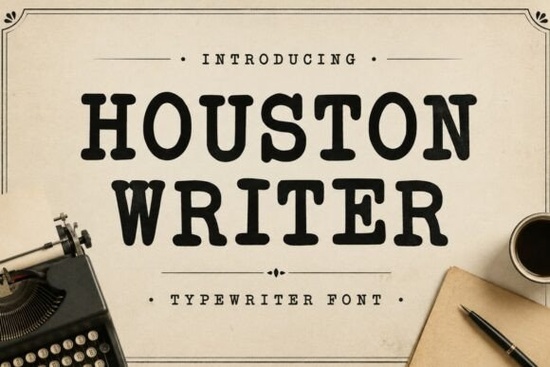
If you're looking for a font that feels like turning the pages of an old novel or typing on a well-loved manual typewriter, Houston Writer Font fits naturally into your workflow without needing to overthink it. It’s not just “vintage-looking”; it’s carefully drawn to echo the subtle imperfections, weight, and rhythm of real typewritten text yet stays crisp and legible at small sizes and on screen. Whether you’re laying out a poetry chapbook, designing café menus, or creating printable journal inserts for Etsy, this serif font bridges nostalgia and practicality in a way many retro fonts don’t.
What kind of projects does Houston Writer work best for?
It shines where authenticity matters more than polish. Think: handwritten-style book covers for indie authors, letterpress-inspired packaging for small-batch candles or teas, or even subtle watermark text on vintage-style scrapbook papers. Because its letterforms are bold but not overly condensed, it holds up well in both large display settings (like posters or social media banners) and smaller functional uses (like recipe cards or product tags).
You’ll also find it useful for editorial layouts especially if you’re designing a literary zine, a local history newsletter, or a themed workshop handout. Its sturdy serifs and even spacing make it easy to read in blocks of body text, unlike some decorative typewriter fonts that sacrifice clarity for character.
How does it compare to other typewriter-style fonts?
Unlike monospaced digital recreations or overly distressed fonts meant only for headlines, Houston Writer Font balances texture with usability. It includes standard OpenType features like ligatures and alternate characters so you can add gentle variation without switching fonts. And because it’s designed as a true serif (not a monospace), it pairs thoughtfully with cleaner sans-serifs like Lato or Montserrat for contrast in branding or layout work.
Other popular options like Olivetti Typewriter Font or Underwood Typewriter Font tend to lean heavier into mechanical precision or heavy wear effects. Houston Writer opts for warmth instead: slightly rounded terminals, soft contrast between thick and thin strokes, and a grounded baseline that feels stable not shaky or overly simulated.
Where do designers actually use it?
- Print-on-demand sellers: Great for quote-based mugs, tote bags, and wall art especially when paired with muted, earthy color palettes common in cottagecore or slow-living themes.
- Small businesses: Works well for café chalkboard menus, bakery labels, or handmade soap packaging where “handmade” credibility matters.
- Crafters and educators: Ideal for printable planners, homeschool worksheets with a vintage textbook feel, or historical reenactment handouts.
- Authors and self-publishers: A strong choice for title pages, chapter headings, or interior drop caps particularly in memoirs, historical fiction, or nature writing.
If you’ve tried other typewriter fonts that felt too stiff or too gimmicky, you might appreciate how Houston Writer sits comfortably in the serif fonts category, offering structure without stiffness. It doesn’t try to be everything just a reliable, expressive voice for stories worth telling slowly.
Try setting a short quote or book title in Houston Writer alongside a simple sans-serif paragraph. If it feels like something you’d want to hold in your hands a notebook, a pressed-flower card, a first edition spine you’re probably using it right.